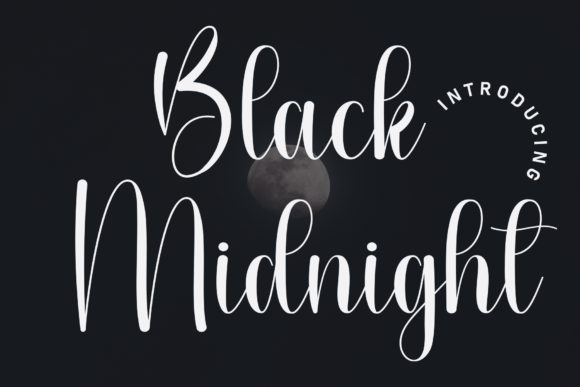
Discover the Charming Appeal of Black Midnight Font: A Delightful Handwritten Display Font
Are you tired of using the same old fonts for your designs? Look no further! Black Midnight Font is a charming handwritten display font that exudes sweetness and friendliness, perfect for adding a playful touch to your wedding invitations, cards, and other artworks. In this article, we’ll dive into the unique allure of this font and explore how it can breathe life into your designs, transforming ordinary narratives into captivating stories.
The Unique Allure of Black Midnight Font
Black Midnight Font is a one-of-a-kind handwritten display font that boasts a distinctive charm. Its sweet and friendly demeanor makes it an ideal choice for designers and crafters looking to add a personal touch to their creations. The font’s unique allure lies in its ability to convey warmth and approachability, making it perfect for designs that require a human touch.
Ideal for Wedding Invitations, Cards, and Artworks
Black Midnight Font is particularly well-suited for wedding invitations, cards, and other artworks that require a playful touch. Its whimsical nature and delightful charm make it an excellent choice for:
- Wedding invitations: Add a touch of romance and whimsy to your wedding invitations with Black Midnight Font.
- Cards: Create personalized and heartfelt cards for special occasions, such as birthdays, anniversaries, and get-well wishes.
- Artworks: Infuse your artworks with a playful and creative vibe, perfect for illustrations, comics, and other visual projects.
The Fun Factor: Amplifying Cuteness and Playfulness
Black Midnight Font’s cuteness amplifies its fun factor, transforming ordinary narratives into captivating stories. The font’s playful nature makes it perfect for designers and crafters who want to:
- Create engaging and interactive designs that capture the viewer’s attention.
- Add a touch of humor and lightheartedness to their creations.
- Convey a sense of friendliness and approachability in their designs.
Infusing Warmth and Creating Lasting Impressions
Black Midnight Font has the power to infuse warmth and create lasting impressions on every viewer’s heart. Its sweet and friendly demeanor makes it perfect for designers and crafters who want to:
- Create designs that evoke emotions and spark connections.
- Convey a sense of empathy and understanding through their creations.
- Leave a lasting impression on their audience.
Tips for Using Black Midnight Font
To get the most out of Black Midnight Font, here are some tips to keep in mind:
- Pair it with contrasting fonts: Combine Black Midnight Font with contrasting fonts to create visual interest and hierarchy.
- Experiment with colors: Try out different colors to find the perfect match for your design.
- Play with sizes: Experiment with different font sizes to create emphasis and add visual interest.
Black Midnight Font is a delightful handwritten display font that exudes sweetness and friendliness. Its unique allure breathes life into designs, making it perfect for wedding invitations, cards, and other artworks that require a playful touch. With its fun factor, cuteness, and ability to infuse warmth, Black Midnight Font is sure to create lasting impressions on every viewer’s heart. So why wait? Discover the charming appeal of Black Midnight Font and take your designs to the next level!